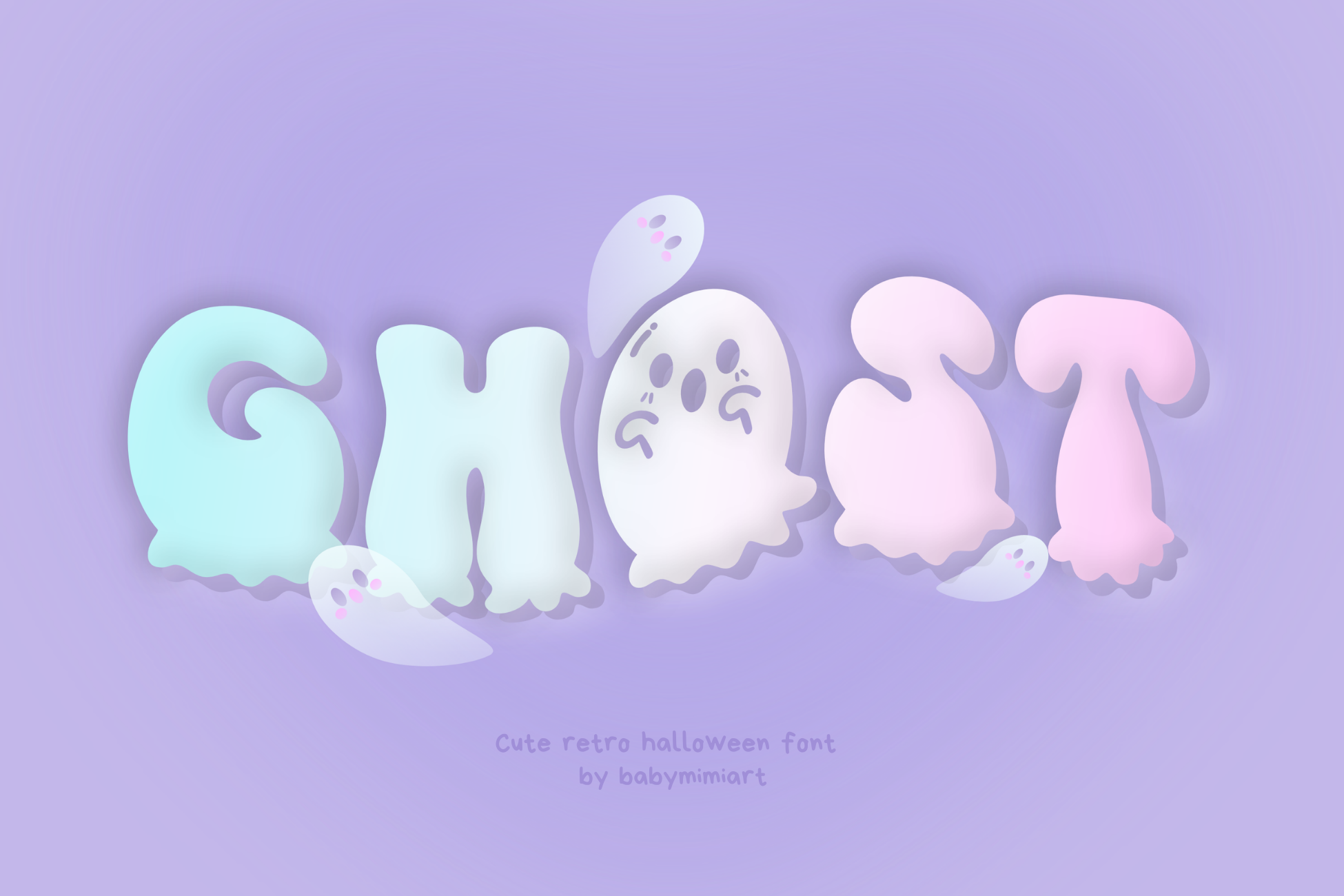
Ghost Creepy Cute Halloween Font
Ghost is a chubby retro groovy font, blending nostalgia with a twist of cuteness. With its unique cute ghost decorations, this typeface adds playful charm to your designs. Its bold curves and funky vibes evoke the ’60s and ’70s, making it perfect for Halloween-themed projects, invitations, posters, and social media graphics. Embrace a vintage feel while adding a touch of adorable spookiness to your creations.